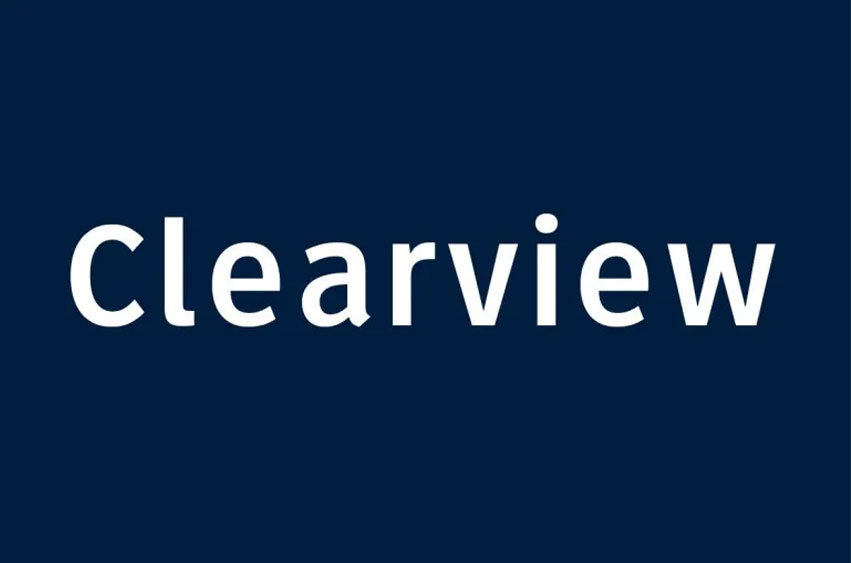
Clearview Font was an extremely readable humanist sans serif font used widely for road sign signs across North America and Southeast Asia including Indonesia, Israel, Sri Lanka and the Philippines. Additionally it featured its sister font Clearview Hwy by late designer Donald Meeker James Montalbano; both versions were independently developed with help from Pennsylvania Transportation Institutes as well as Texas Transport institutes before finally coming under control of The Federal Highway Administration.
Following initial tests, it has been demonstrated that this stunning typeface is 2 to 8 percent more legible evening and daytime reading than other signs, particularly for older drivers – with 6 percent improvement in accessibility over long distances. Its unique sans serif typeface makes it suitable for display as well as printing media use; especially designed to display big headlines with chunky text such as headlines or titles.
The font family features thirteen styles. Each contains all capital letters, general punctuation symbolism and updated icons as well as unique characters that make the font ideal for posters, logos, brand names, quotes, products and more.